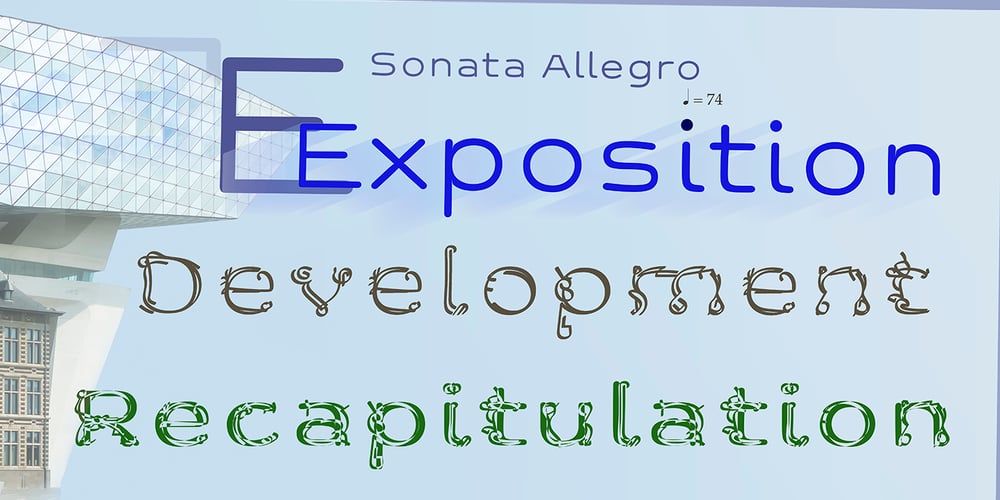
Sonata Allegro Hebrew
Sonata Allegro Hebrew font
Sonata Allegro Hebrew Font Family was designed by Hillel Glueck and published by Tamar Fonts. Sonata Allegro Hebrew contains 3 styles and family package options. “The Emperor Has Clothes”Like in music — the Allegro Sonata form consists of three main sections—the Exposition (section), the Development, and the Recapitulation — so in regard to this Allegro Sonata font family — there is an Exposition (font), a Development, and a Recapitulation—in which each theme is restated alongside its development material.While the Recapitulation font is perfect for titling and branding, the Exposition is perfect for branding {as demonstrated in the Inspiration Gallery pertaining this font} as well as being a comfortable read in long runs of text.The Exposition rounded, mono-line, with great x height, contemporary—A Synthesis Between Geometric & Hand-drawn—font, is at times geometric and at times hand drawn; in the end it all came down to finding the balance in a typeface between the robustness needed to function as a text face and enough refinement to look good as a display font. Following the Exposition, comes the Development (section), decorative, botanic-like, exuberant and playful font, signifying ABUNDANCE [of possibilities] & BENEVOLENCE—in regard to each theme/character, and to demonstrate—that ‘structures’ in music, are solid structures—like architecture {contrary to the words of J. W. von Goethe, who said: “Music is liquid architecture; Architecture is frozen music”}, just in some spiritual domain that is far beyond one’s physical senses to grasp.Like in my art and music works in which I consider its ‘Texture’ element of vital importance, so is the case when it comes to type, as apparent in my previous Phone Pro/Polyphony font, as well as in this current Sonata Allegro/Development font.Each glyph has its own uniqueness, and when meeting with others, will provide dynamic and pleasing proximity. And due to the [individualistic] nature of this Development font, just a minimal amount of kerning/pairing were necessary…The development font is an extravagant design that looks best when used at large sizes—perfect for titling, logo, product packaging, branding project, wedding, or just used to express words against some [light or dark] background.Finally, “The (Exposition Font) Emperor Has (the Development Font) Clothes!”As said, there are three fonts/styles altogether in this Sonata Allegro type family, designed with the intention of harmonizing between Latin and Hebrew, which makes it an ideal font for the side-by-side use of Latin and Hebrew characters. However, they are being sold separately (kindly search for “Sonata Allegro Hebrew” on this MyFonts site), so they are economical for those interested just in either one of them.My aim is to shake up the type-design world with a range of distinctive fonts which break away from the generic letterforms, to make your design projects stand out—as a graphic designer, add this font to your most creative ideas for projects. This typeface has [lots of ligatures /] OpenType features, to enhance your designs even more — happy designing!Sonata Allegro Features:· 3 Weights/Styles· Multilingual Support· Proportional Figures & LigaturesWhile using this product, if you encounter any problem or spot something we may have missed, please don’t hesitate to write to us; we would love to hear your feedback—in order to further fine-tune our products.Copyright Tamar Fonts/Hillel Glueck 2022ALL RIGHTS RESERVEDAny unauthorized distribution of my work is strictly prohibited, and will be prosecuted; do the right thing, and do not participate in the piracy of my typefaces; if you appreciate my work, then please pay for it and help me prosper — thank you!